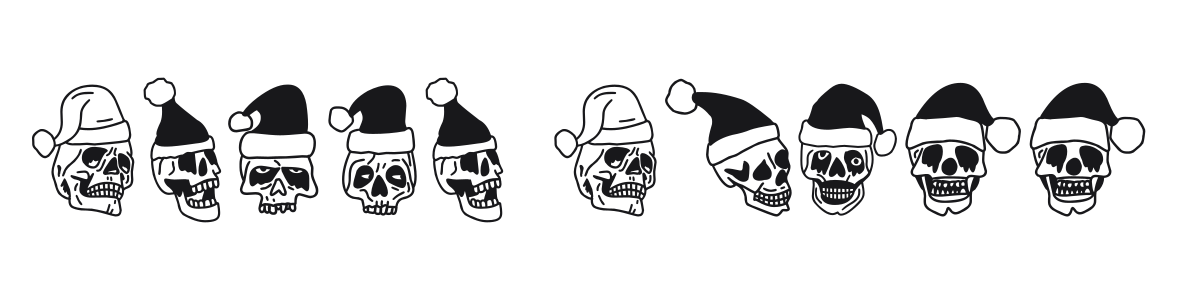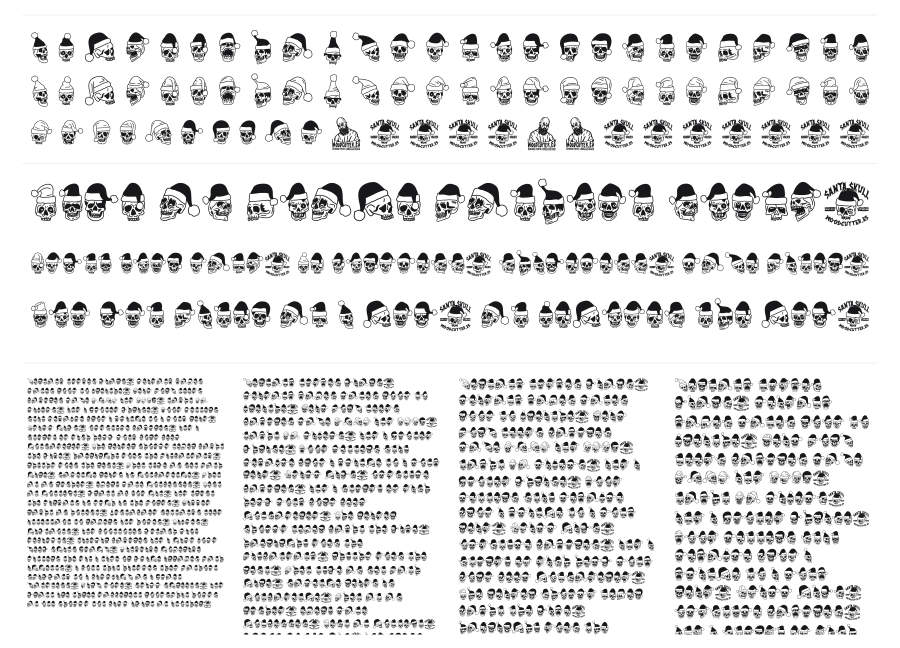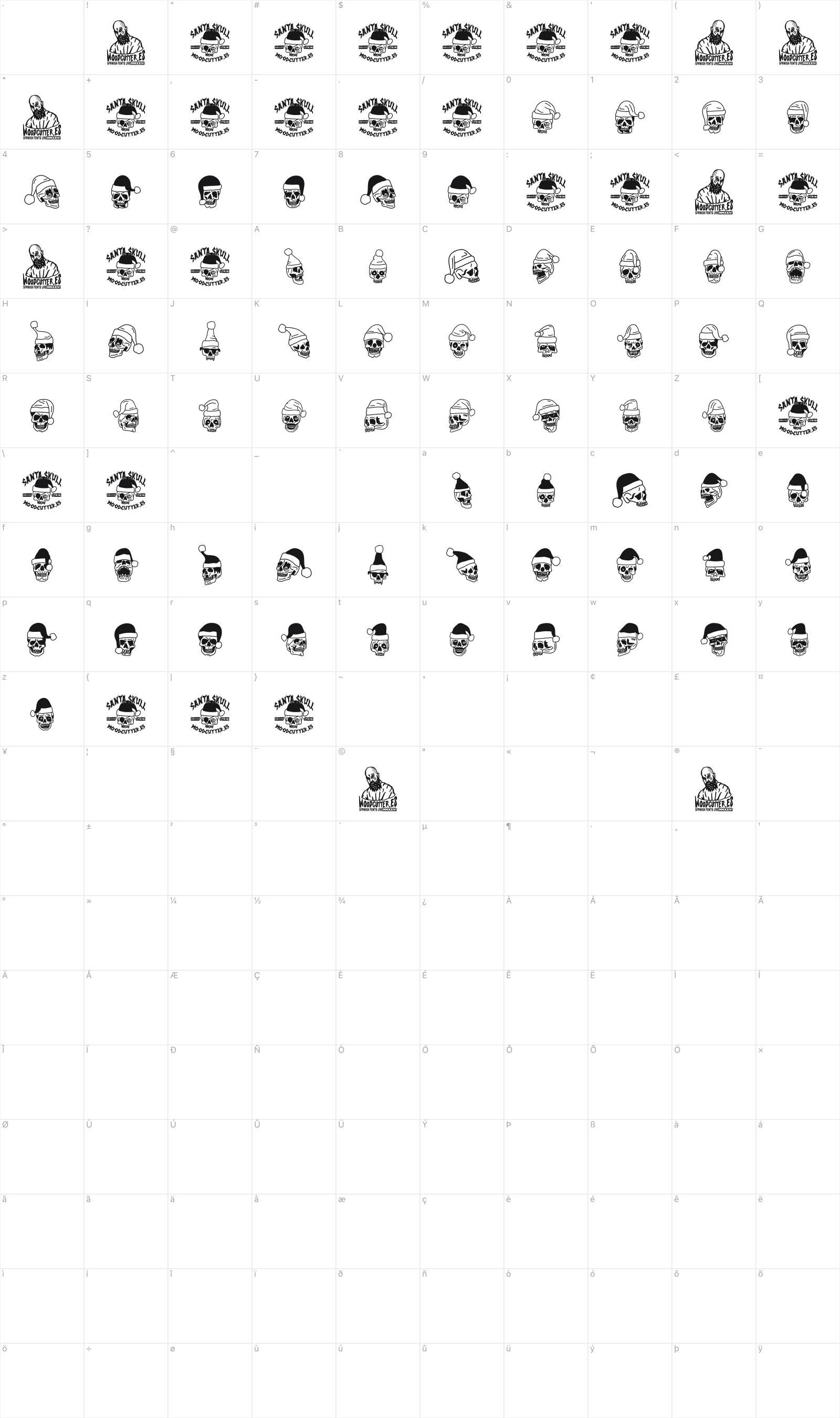
Santa Skull
Santa Skull is a dingbat font by Woodcutter Manero featuring a parade of skull faces in Santa hats, each one distinct. The bold woodcut-style linework keeps the horror element graphic rather than gory, landing squarely in the fun-and-macabre territory. A go-to for dark Christmas aesthetics, band merch, or any project that wants holiday cheer with an edge.